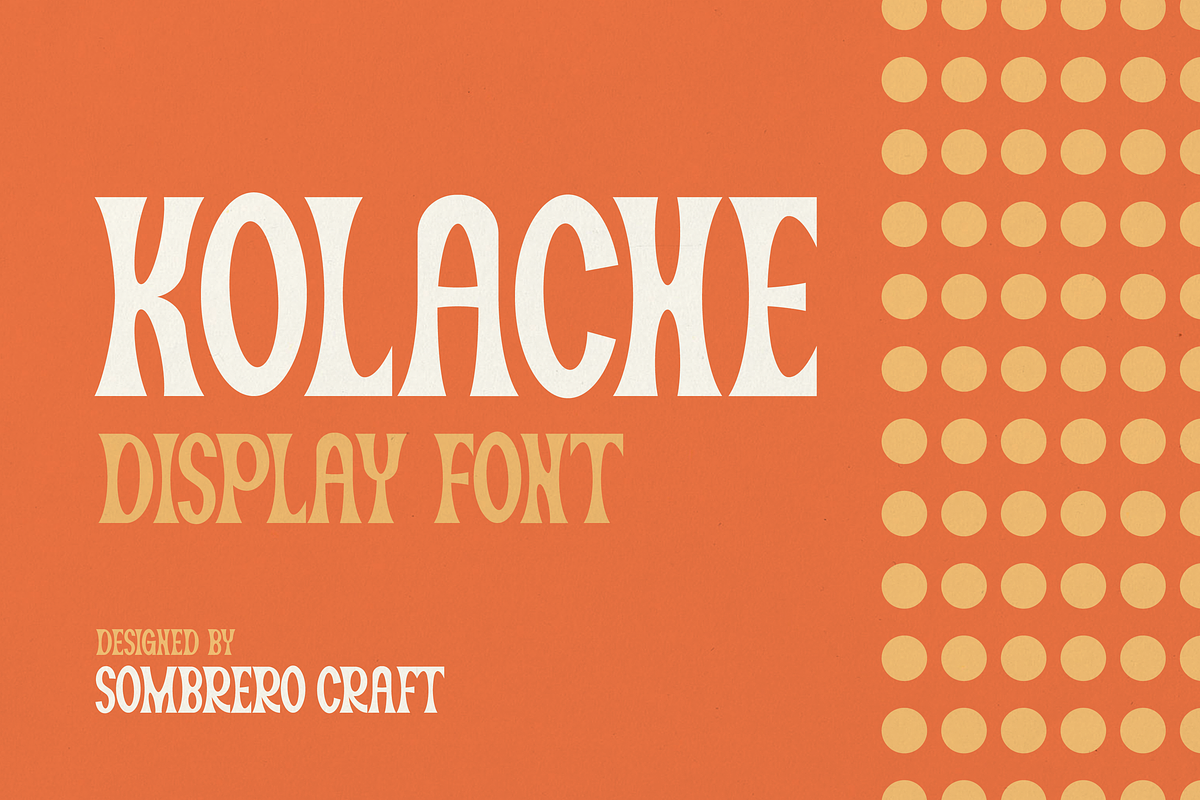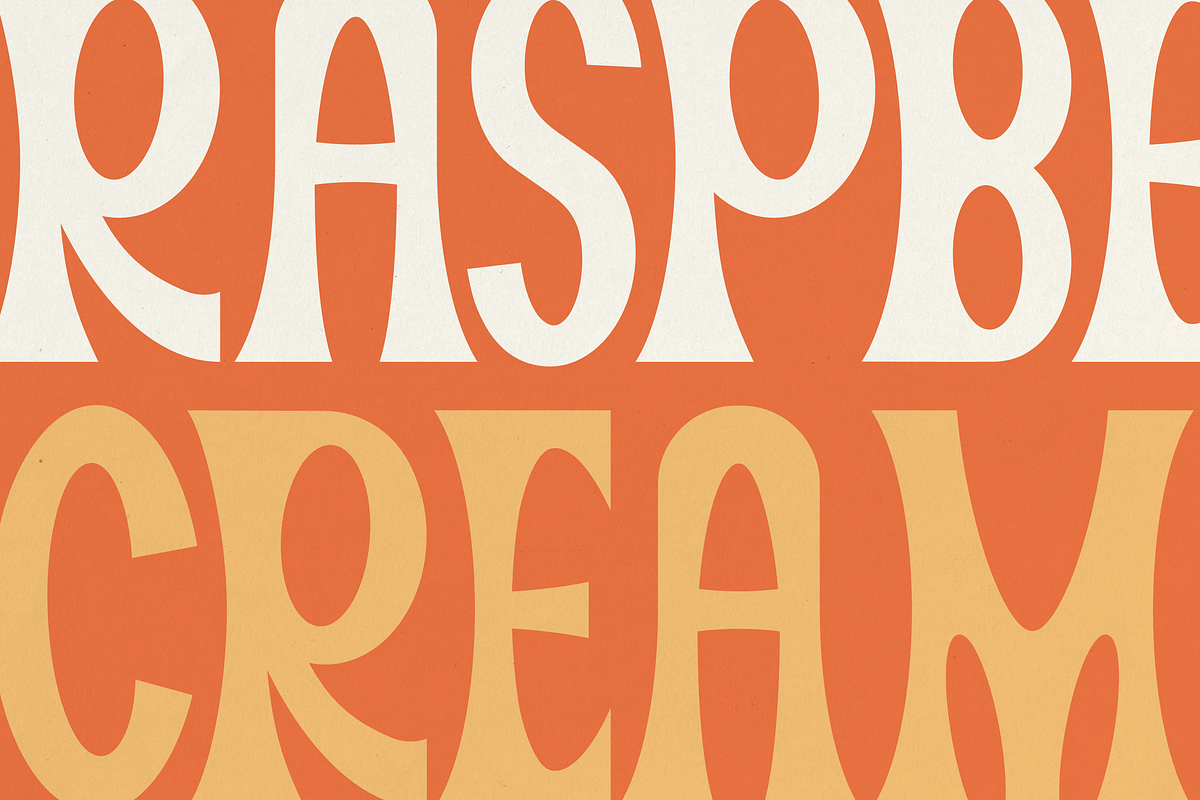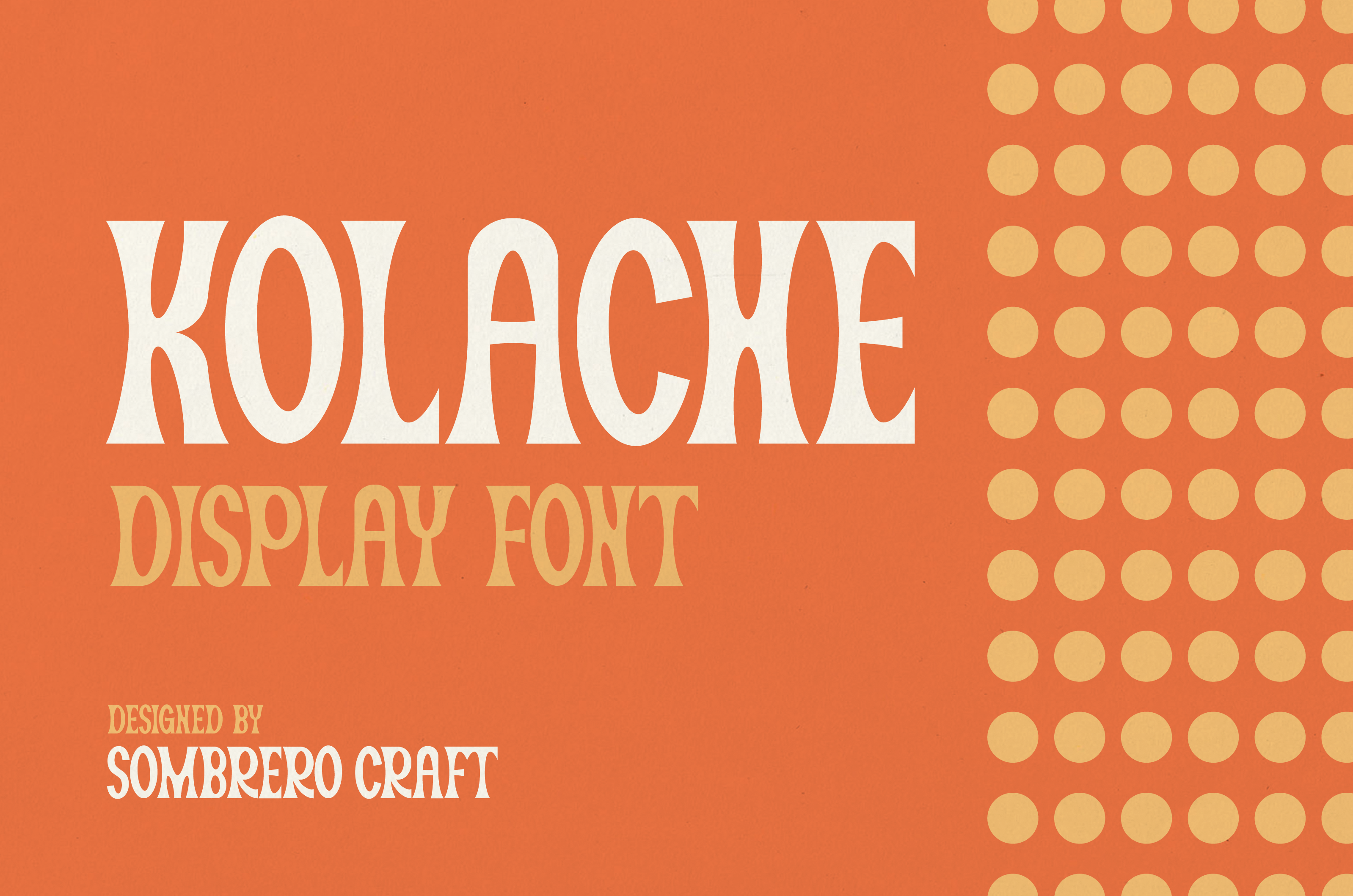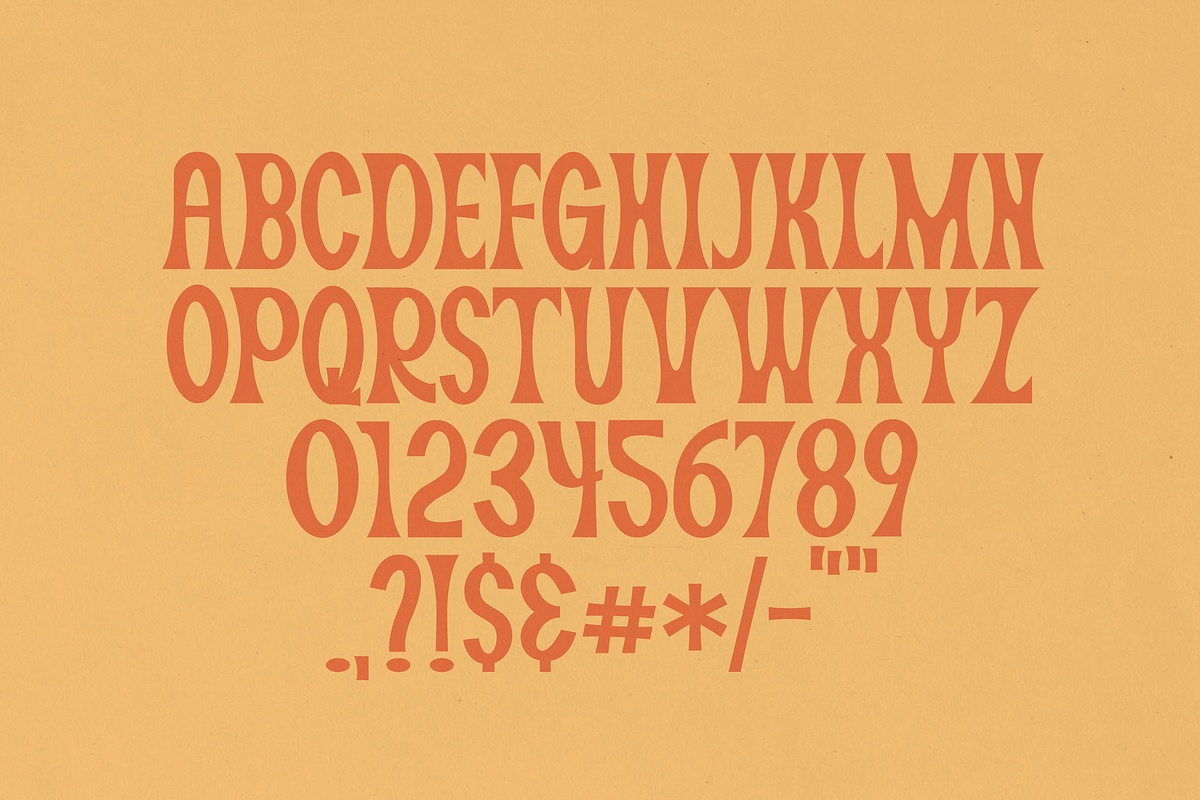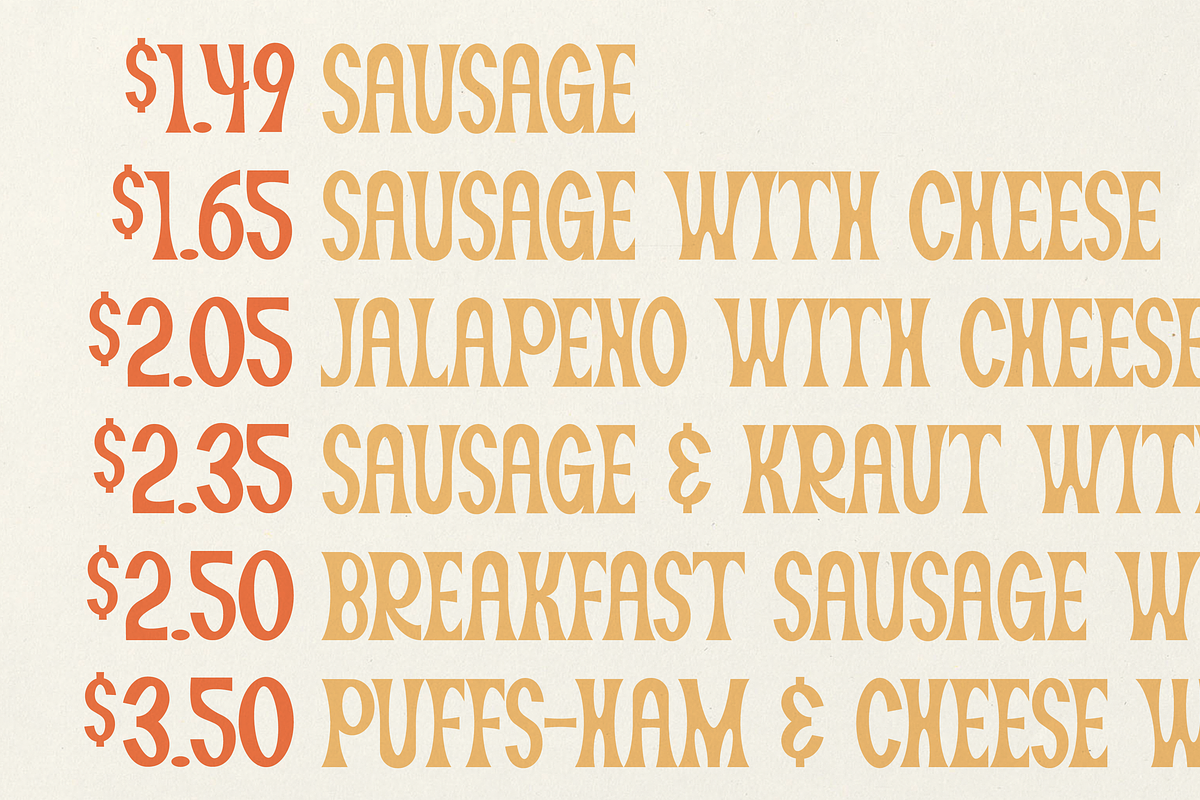
Kolache - Display Font
Kolache is the sans serif display font that'll work perfectly for your next project that needs a little curvy, quirky, cosmic flair.